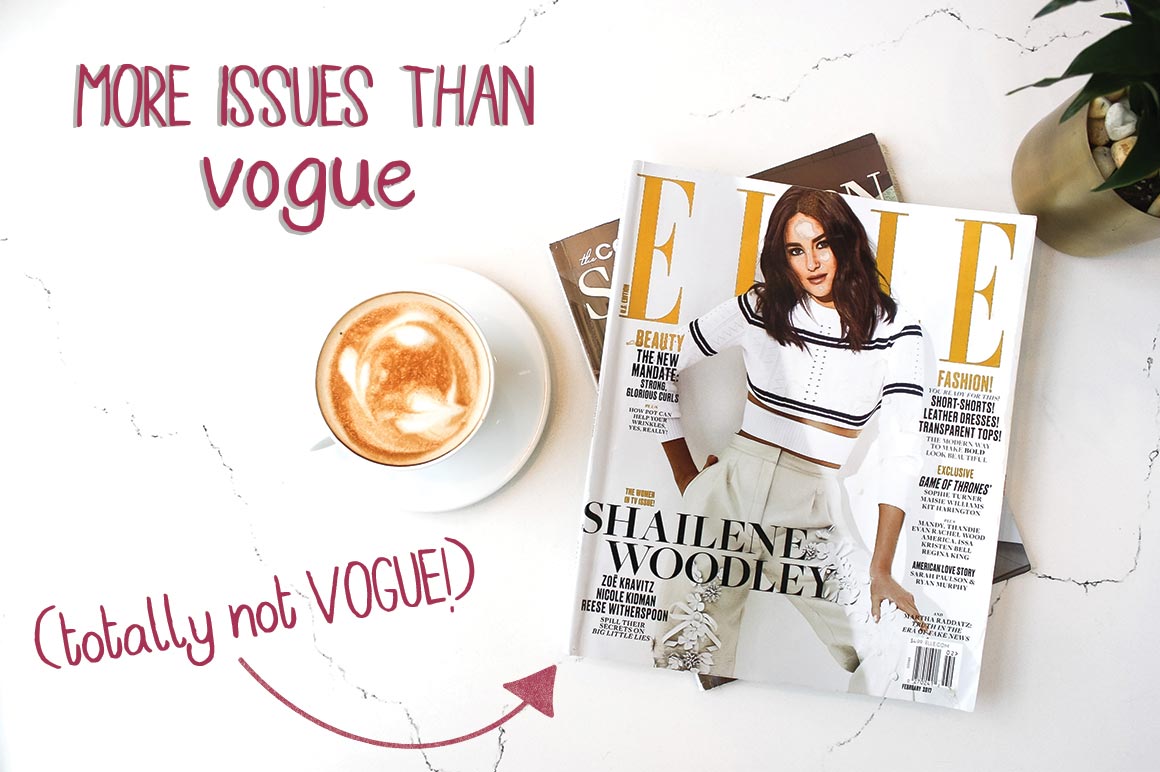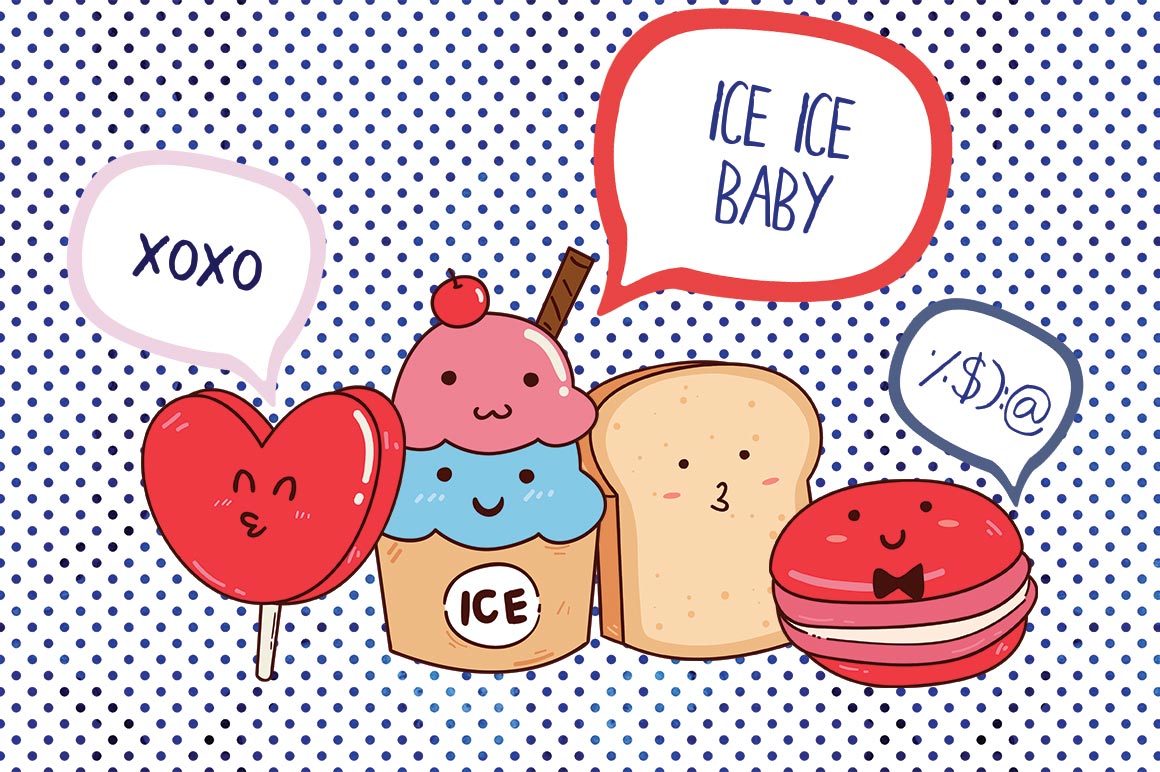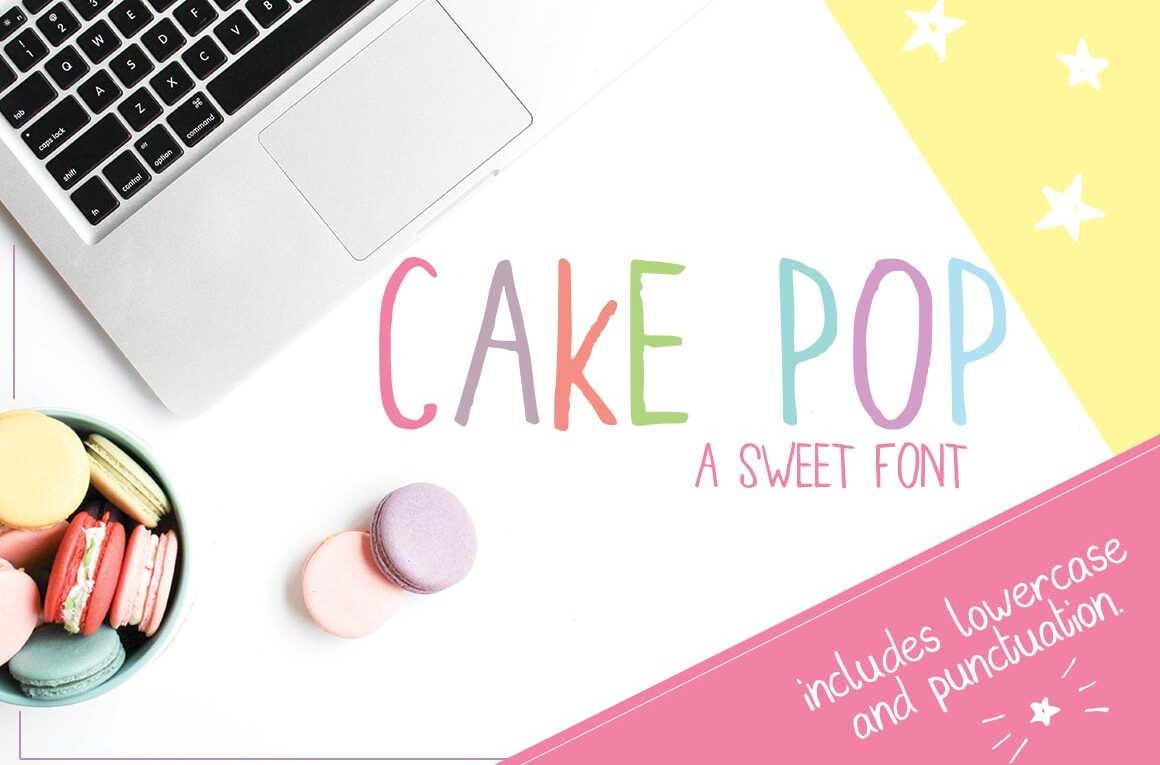
Cake Pop Font: A Sweet Addition to Your Design Toolbox
Are you a designer or crafter looking for a font that adds a touch of whimsy and fun to your projects? Look no further than the Cake Pop Font! This adorable font is perfect for anyone with a sweet tooth and a love for all things cute. In this article, we’ll dive into the world of Cake Pop Font and explore its features, uses, and benefits.
What is Cake Pop Font?
Cake Pop Font is a fun and cutesy font that’s designed to bring a smile to your face. With its playful and hand-drawn vibe, this font is perfect for adding a personal touch to your designs. Whether you’re working on a project for a bakery, a craft blog, or a kids’ party invitation, Cake Pop Font is sure to make your text stand out.
Features of Cake Pop Font
So, what makes Cake Pop Font so special? Here are just a few of its key features:
- Hand-drawn design: Cake Pop Font has a charming, hand-drawn quality that gives it a unique and personalized feel.
- Playful style: This font is perfect for adding a touch of whimsy and fun to your designs.
- Versatile: Cake Pop Font can be used for headers, large blocks of text, and even adding a decorative touch to your designs.
- Easy to read: Despite its playful style, Cake Pop Font is still easy to read, making it perfect for use in a variety of projects.
Uses for Cake Pop Font
So, how can you use Cake Pop Font in your designs? Here are just a few ideas to get you started:
- Baking and desserts: Cake Pop Font is perfect for bakery logos, dessert menus, and sweet treat invitations.
- Crafting and DIY: This font is great for craft blogs, DIY tutorials, and handmade product labels.
- Kids’ parties and events: Cake Pop Font is a great choice for kids’ party invitations, birthday cards, and other fun event materials.
- Social media and blogging: Use Cake Pop Font to add a playful touch to your social media graphics and blog posts.
Benefits of Using Cake Pop Font
So, why should you choose Cake Pop Font for your designs? Here are just a few benefits:
- Adds a personal touch: Cake Pop Font gives your designs a unique and personalized feel.
- Grabs attention: This font is sure to grab attention and make your text stand out.
- Versatile: This font can be used in a wide range of projects, from digital designs to print materials.
Tips for Using Cake Pop Font
Here are a few tips for getting the most out of Cake Pop Font:
- Use it sparingly: Cake Pop Font is best used in moderation, as it can be overwhelming if used too much.
- Pair with other fonts: Try pairing Cake Pop Font with other fonts for a unique and interesting look.
- Experiment with colors: This font looks great in a variety of colors, so don’t be afraid to experiment and find the perfect hue for your design.
In conclusion, Cake Pop Font is a fun and cutesy font that’s perfect for designers and crafters who want to add a touch of whimsy to their projects. With its hand-drawn design, playful style, and versatility, this font is sure to become a favorite in your design toolbox. So why not give Cake Pop Font a try and see how it can sweeten up your designs?